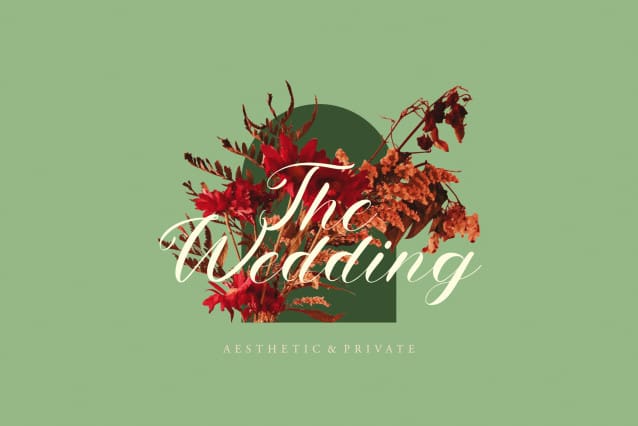
NCL Lets Wendy Font
NCL LETS WENDY FONT is a unique and charming handwritten calligraphy wedding script font. It’s stylish and modern-classic display font. Masterfully designed to become a true favorite, this font has the potential to bring each of your creative ideas to the highest level! It was purposely crafted to be used in large point sizes, although it doesn’t lose its magic in small point sizes. NCL Lets Wendy is perfect for headline, billboard, magazines, website, titles, poster, branding, t-shirt design, wedding invitation, wedding card, romantic design, and logos. No matter the topic, this font will be an incredible asset to your fonts’ library, as it has the potential to elevate any creation. With this beautiful font, absolutely you can make your project stand out from the rest. See the previews above to get some inspiration on how to use them.